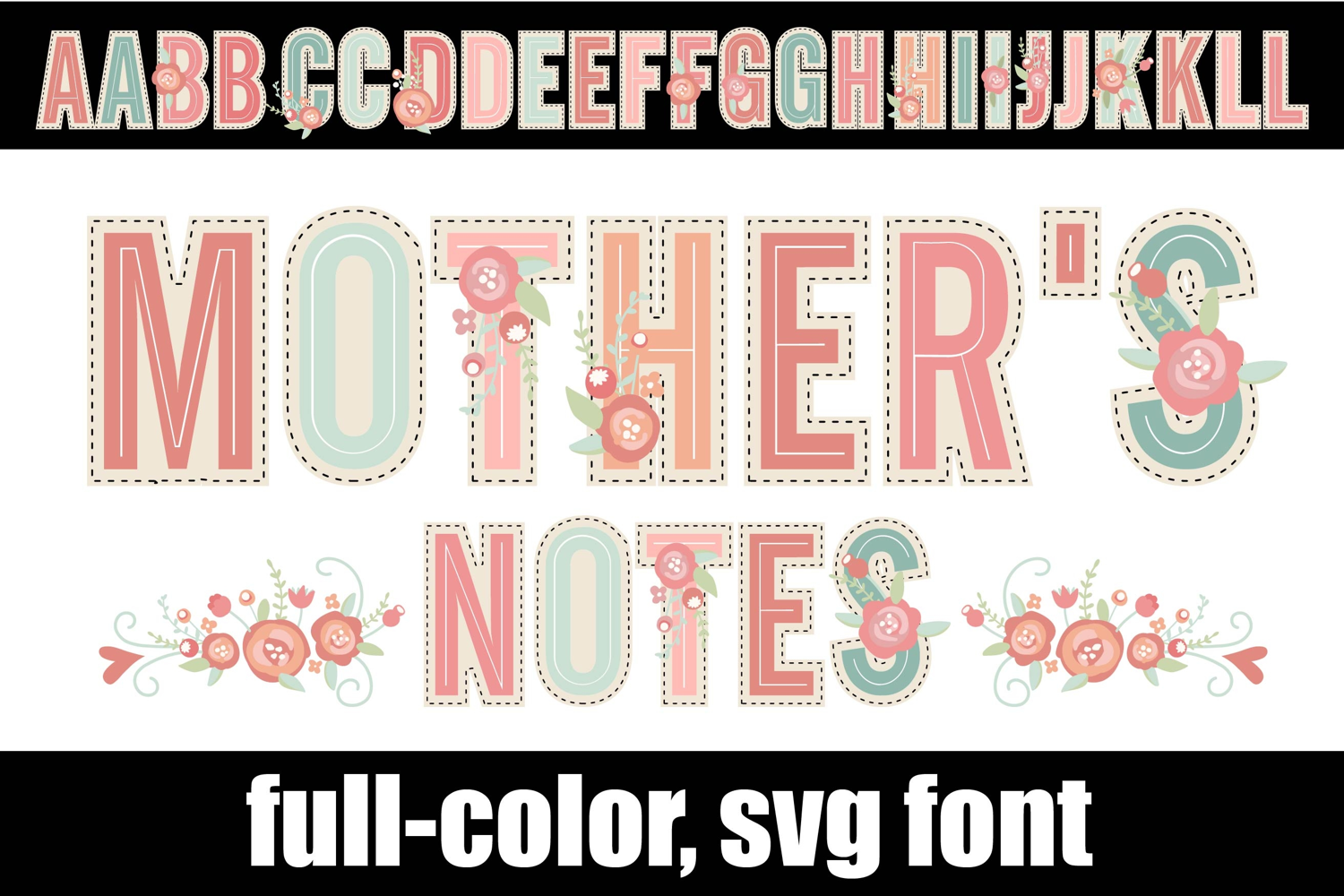
Mother's Notes Color Font
This full-color sans serif font features florals throughout. To access the floral flourishes, type the greater than an less than, triangular brackets. There is an alt case of additional colors of each letter that you can access through your system's character map.